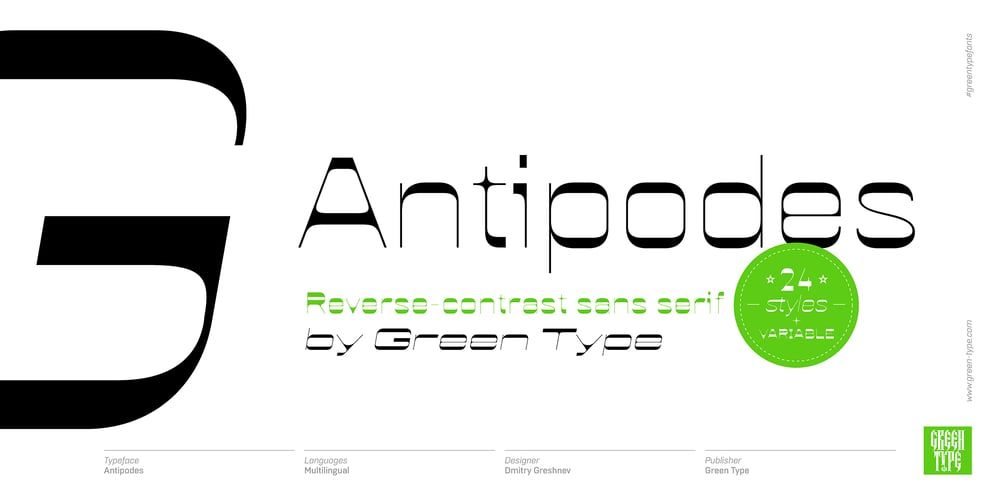
Antipodes
Antipodes font
Antipodes Font Family was designed by Dmitry Greshnev and published by Green Type. Antipodes contains 24 styles and family package options. Antipodes is a decorative reverse contrast font family. Designed for use in outdoor advertisements, branding, packaging. Antipodes is also perfect for movies and cartoon, video games and mobile apps. Antipodes contains latin, cyrillic and greek gliphs. There is also standard and discretionary ligatures. Any style comes with a wide range of OpenType features: fractions, proportional and tabular figures, contextual alternates, and much more.